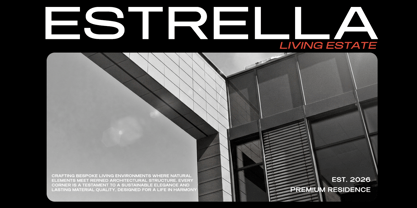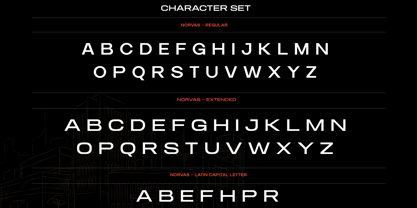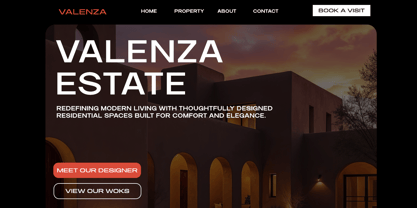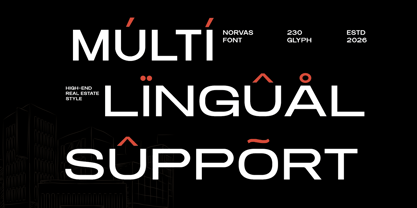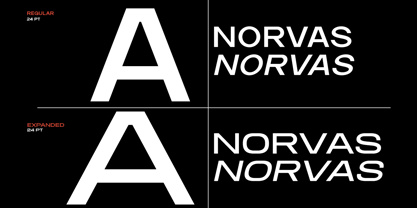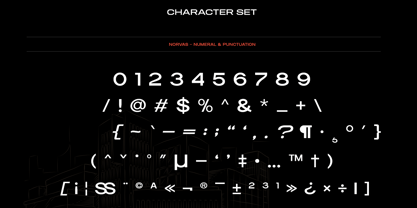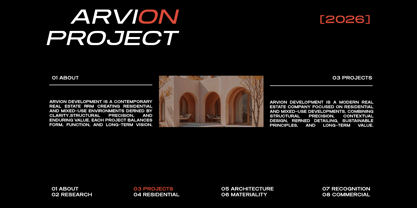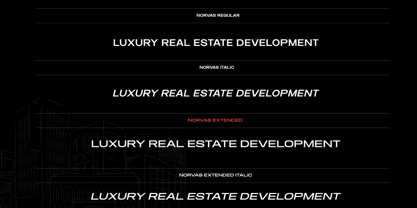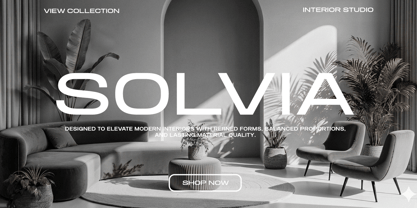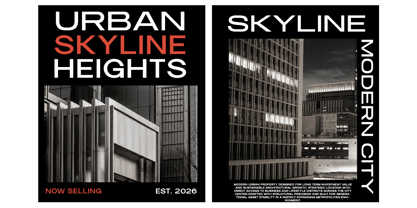
Norvas
The Norvas Font Family was designed by Mussyayin and published by Say Studio. Norvas contains 4 styles and family package options. More about this family
Norvas is a modern extended sans serif font crafted to provide a sleek, futuristic, and confident visual presence. Featuring wide proportions, a clean geometric structure, and sharp letterforms, Norvas establishes a strong typographic identity that stands out in contemporary design. The extended style contributes a unique modern character while ensuring excellent readability. This font is perfect for a variety of applications, including branding, tech startups, digital interfaces, website headers, posters, advertising, product packaging, editorial layouts, and social media visuals. Its modern extended form is particularly effective for bold headlines, logo design, and futuristic brand identities that demand attention. Norvas offers both regular and extended styles, along with italic variations, giving designers the flexibility to create dynamic layouts and modern branding systems. Whether utilized for technology brands, corporate design, or innovative digital projects, Norvas provides a clean, professional, and striking typographic voice. Thank You Saystudio